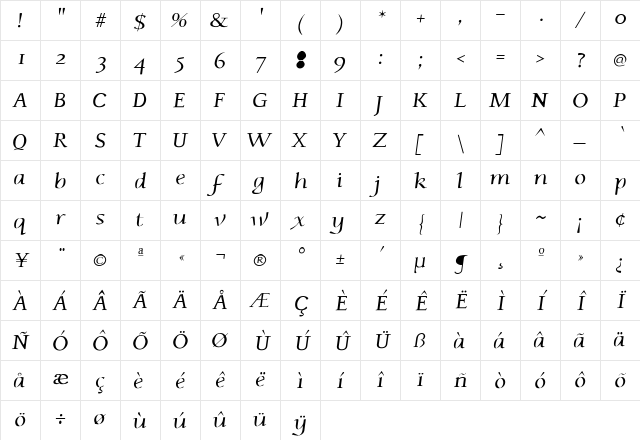
PhaedrusItalic Regular Free Font
Design Context for PhaedrusItalic
PhaedrusItalic is a composed and adaptable typeface that performs quietly and consistently across a wide range of design contexts. The slanted form adds forward momentum and visual energy.
Pro Tip: Use PhaedrusItalic for emphasis, pull quotes, and subheadings where its slanted energy can add rhythm to the layout.